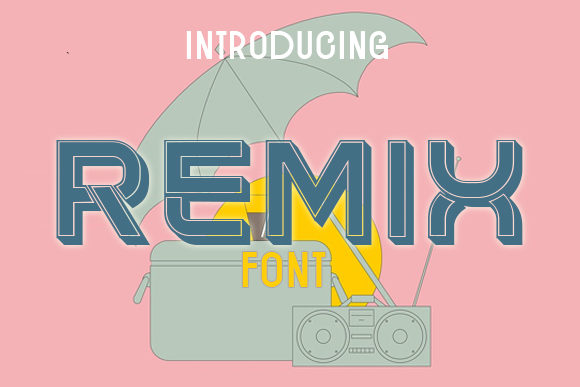
Welcome to the world of typography, where creativity meets technology! We are introducing the remarkable Remix Font, a masterpiece that will transform your designs into captivating masterpieces.
Picture this: bold 3D letters leaping off the screen, adding an irresistible dimension to your posters, logos, and social media posts. Remix Font is not just another font; it's a powerful tool that empowers you to express yourself uniquely.
Crafted by the talented Vladimirnikolic, Remix Font is a testament to artistic brilliance. Each intricate character exudes a three-dimensional charm that will make your words dance before your eyes. Whether you're a seasoned designer or just embarking on your typographic journey, this font will unleash your imagination like never before.
Immerse yourself in the versatility of Remix Font. Its bold and captivating presence makes it the perfect choice for headlines, titles, and logos that demand attention. The clean lines and sharp angles add a touch of elegance to your designs, giving them a polished and professional finish.
But it's not just about aesthetics; Remix Font is engineered to enhance readability. The carefully spaced characters and optimized letterforms ensure your message is conveyed with clarity and impact. Your audience will glide effortlessly through your text, absorbing every word with ease.
But what truly sets Remix Font apart is its ability to evoke emotion. The dynamic 3D effect adds a sense of depth and movement that resonates with viewers. Your words will come alive, capturing hearts and minds with their captivating allure.
If you're yearning to make an unforgettable impression, Remix Font is your answer. It's more than just a font; it's a creative catalyst that will ignite your imagination and inspire your designs to soar to new heights. Experience the transformative power of typography today!